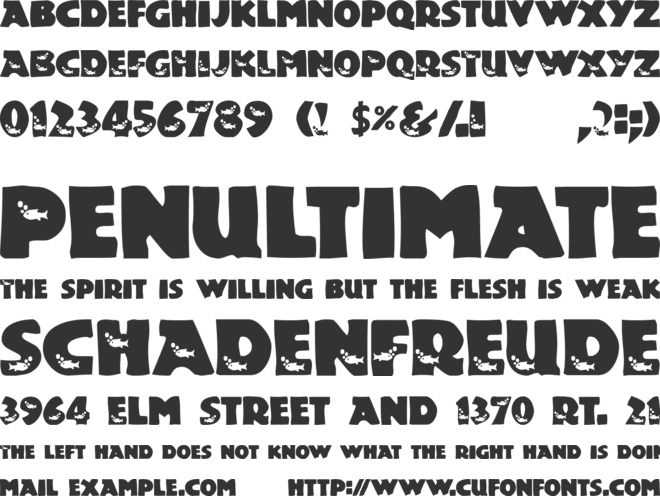
Touch Of Nature Font
Ben McGehee
This initial version includes capital letters with fish in them, capital letters without them in the lowercase slots, numbers with fish, and a few more.
While walking the stairs at LA Tech University, where I am a student, I saw an ad with letters that I really liked. It was an ad for a new Pet Shop in Town called Touch of Nature. The thing I really liked was that "Nature" was written in rough-looking letters with fish in them. I decided that I would try to recreate this in a font, and Touch of Nature is the result.